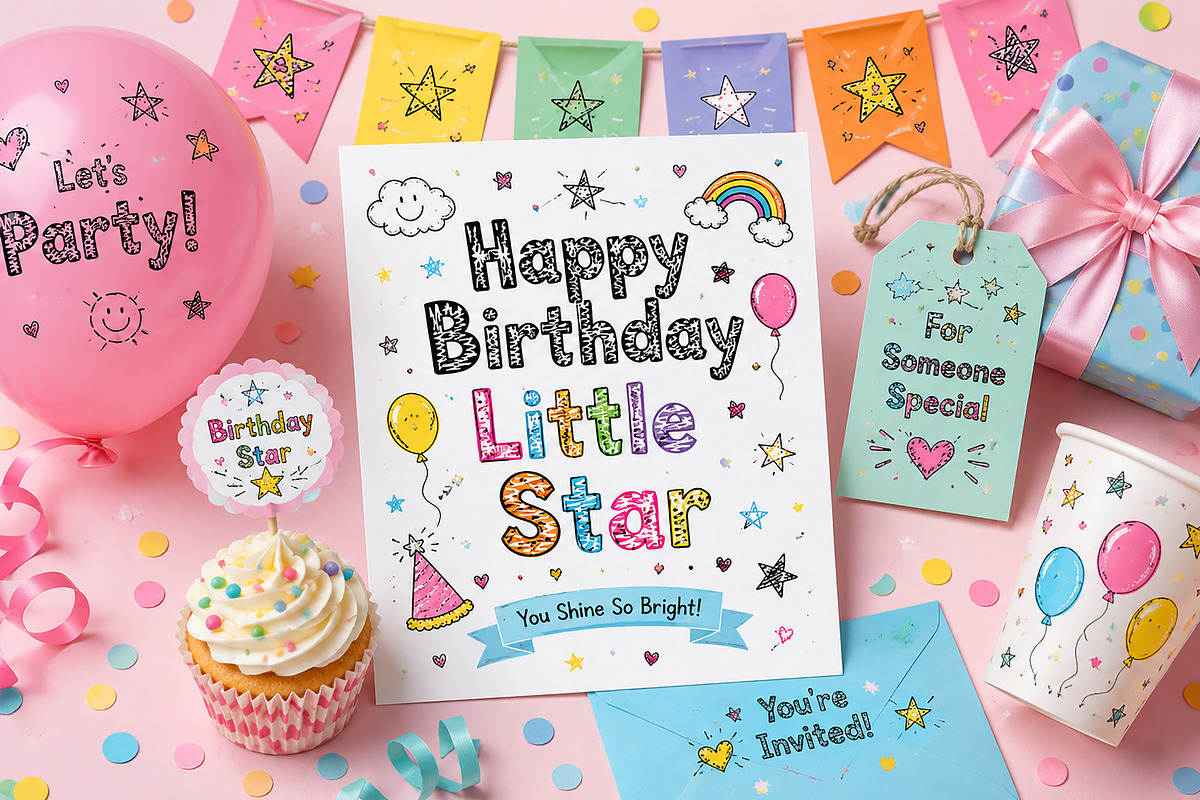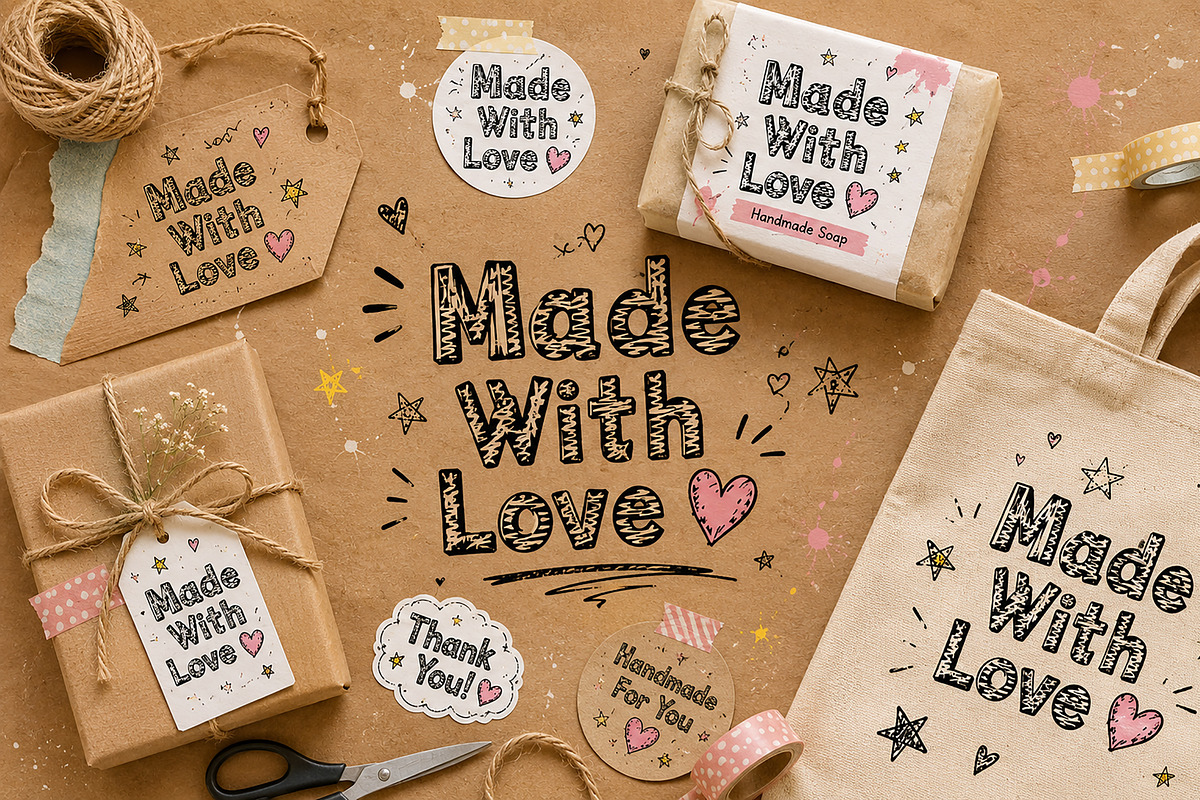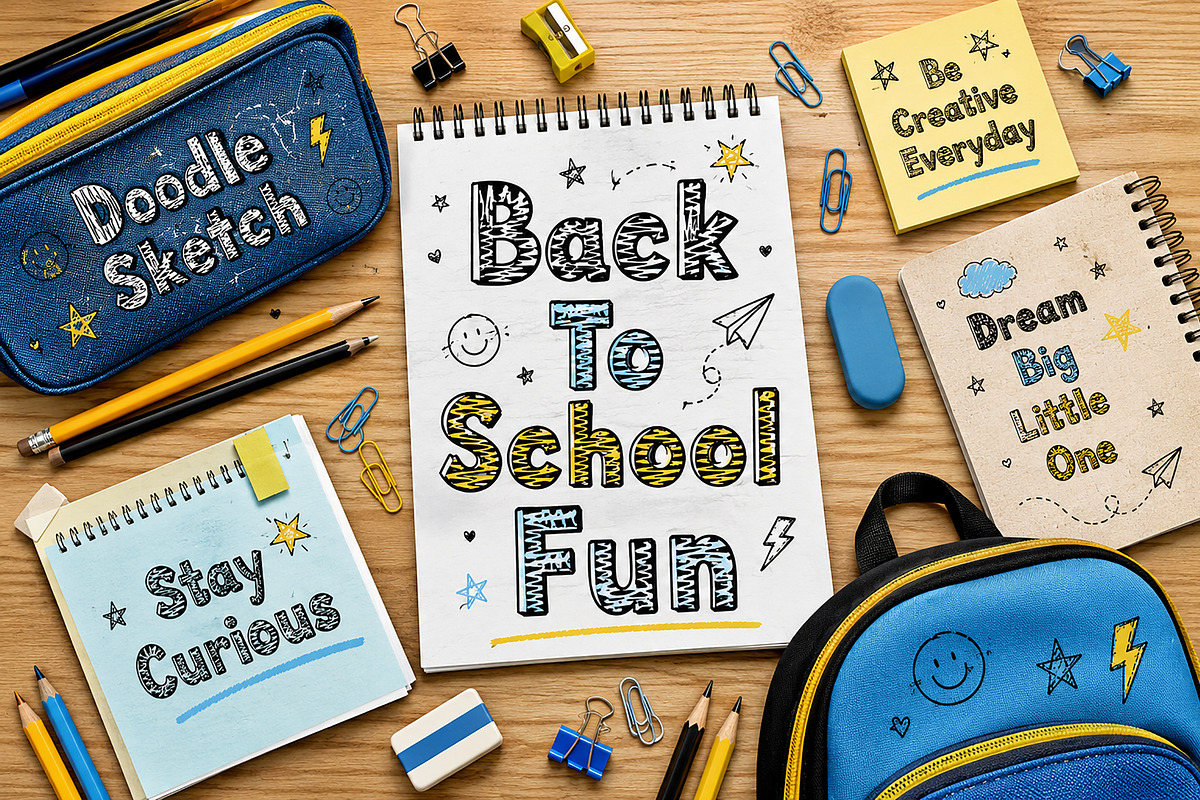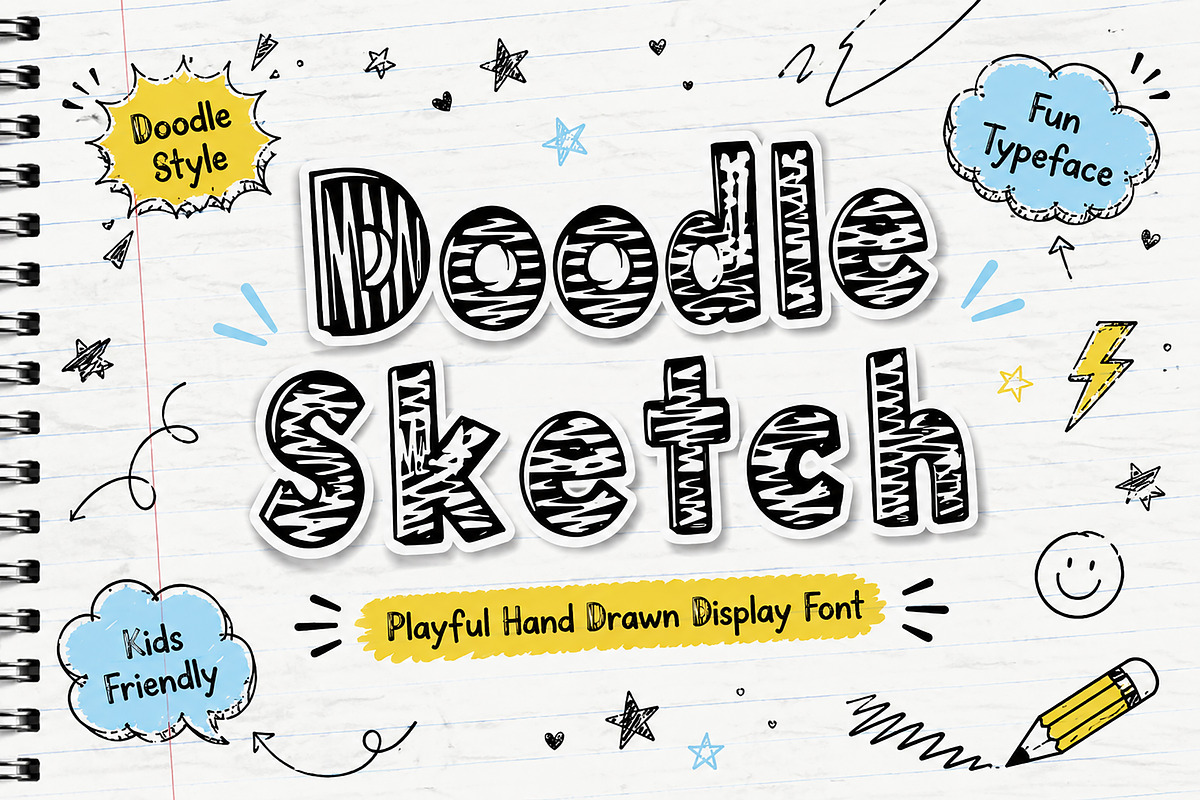
Doodle Sketch
Doodle Sketch is a playful hand-drawn display font inspired by notebook doodles, kids’ sketches, and creative classroom vibes. With its rough sketchy strokes, fun scribble texture, and bold cartoon-like personality, this typeface brings energy, imagination, and charm to every design.
Perfect for kids branding, school projects, playful packaging, book covers, toy labels, posters, stickers, social media graphics, YouTube thumbnails, and fun merchandise. Its quirky handmade style makes your designs feel warm, friendly, and full of character.
Whether you're creating something cute, funny, youthful, or artistic, Doodle Sketch adds a unique creative touch that stands out instantly.
Kids Branding
School Projects
Toy Packaging
Children’s Books
Posters & Flyers
Stickers
T-Shirt Designs
Social Media Posts
YouTube Thumbnails
Birthday Invitations
Craft Projects
Fun Logos